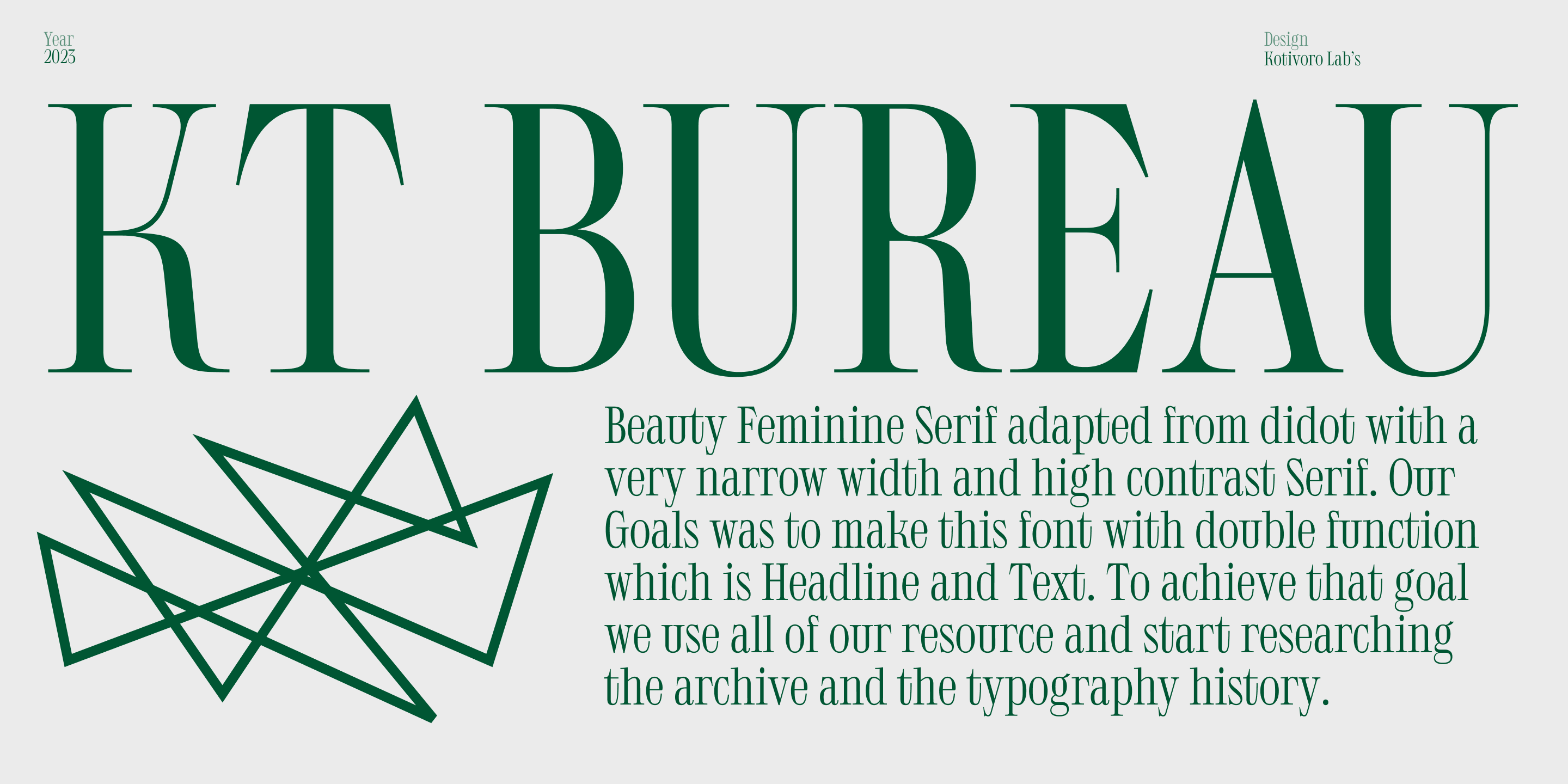
KT Bureau Font is perfect for corporate annual reports, government agency documentation, professional law firm branding, financial institution materials, consulting company presentations, bureaucratic office signage, official document headers, administrative form designs, institutional correspondence, and executive business communications.
What makes KT Bureau Font so exciting is its authoritative embodiment of institutional credibility and professional excellence through meticulously crafted letterforms that command respect and convey unwavering reliability. The font's design philosophy centers on creating maximum trustworthiness while maintaining sophisticated readability, featuring clean lines, balanced proportions, and calculated spacing that suggest competence, organization, and administrative precision. Each character exudes professionalism and institutional authority, creating a visual language that instantly communicates legitimacy, expertise, and bureaucratic efficiency. This remarkable typeface transforms ordinary business communications into powerful expressions of corporate reliability and institutional strength that resonate with audiences seeking professional credibility and authoritative presence.
The KT Bureau Font family includes professional variations: Regular, Bold, Light, Medium, Condensed, Extended, Italic, Outline, and Official styles. Each variation maintains the font's characteristic institutional authority while offering different levels of formality and administrative detail for various corporate and governmental design applications.
When searching for a typeface that captures the essence of institutional reliability and professional authority, KT Bureau Font Free Download represents the gold standard of corporate typography design that elevates any project to new levels of business sophistication and administrative credibility.
The expertly engineered letterforms of KT Bureau Font demonstrate superior attention to professional standards, featuring precise geometry, systematic spacing, and carefully balanced proportions that ensure optimal legibility across all corporate communications and official documentation. Its versatile design adapts seamlessly from intimate business cards to expansive corporate headquarters signage.
Professional designers working on corporate sectors, government agencies, and institutional brands particularly value the font's ability to convey authority, trustworthiness, and bureaucratic efficiency. The typeface works exceptionally well for projects targeting business executives, government officials, and anyone seeking to project administrative competence and institutional positioning.
The comprehensive OpenType features of KT Bureau Font include professional alternates, institutional ligatures, and specialized character sets that enable designers to create sophisticated corporate typography while maintaining the font's distinctive authoritative character throughout all design elements and official applications.